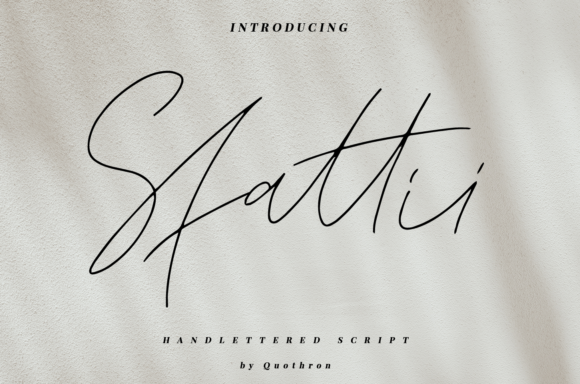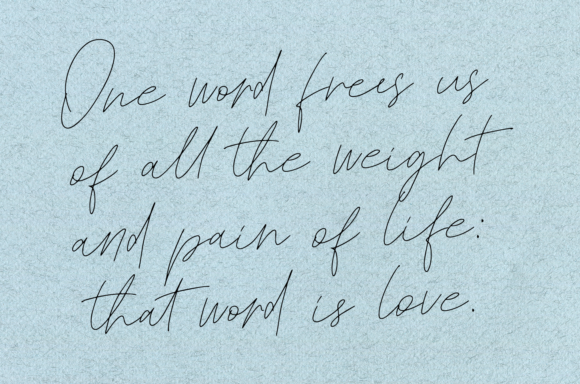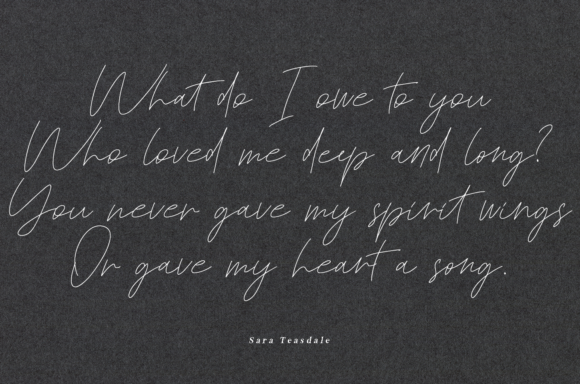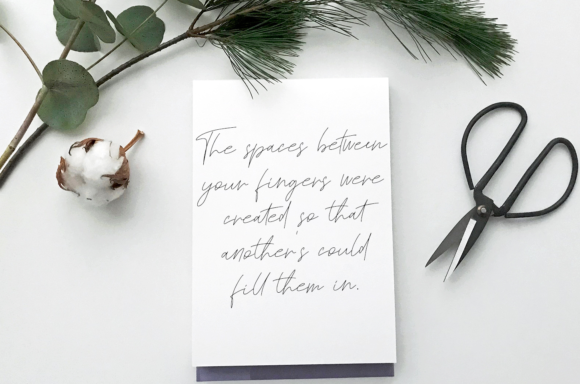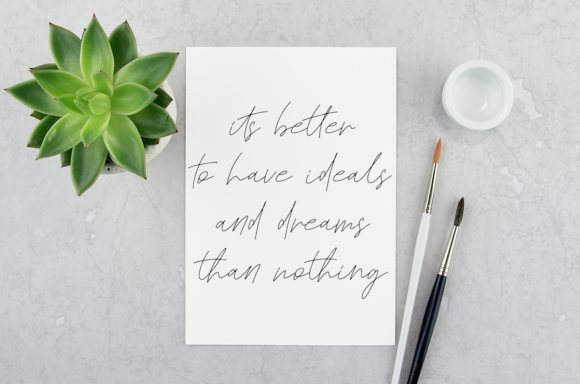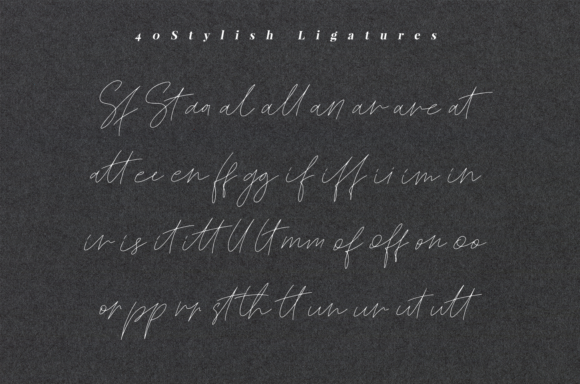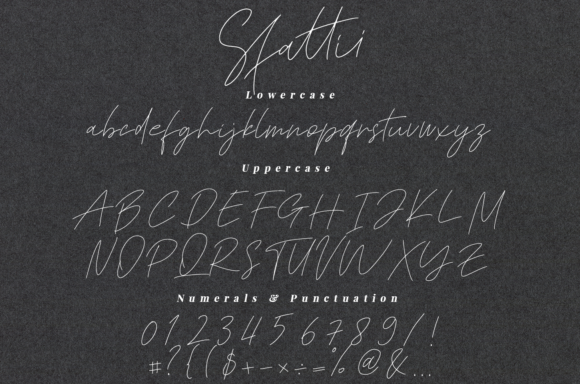
HomeScript FontsSfattii Font Script Fonts Sfattii Font FacebookXPinterestWhatsApp Sfattii Font Poster 2 Sfattii Font Poster 3 Sfattii Font Poster 4 Sfattii Font Poster 5 Sfattii Font Poster 6 Sfattii Font Poster 7 About Sfattii Font Sfattii is a lovely handmade calligraphy font. It will give your designs a classy and modern touch! DOWNLOAD ON CREATIVE FABRICAThis font is sold and delivered by Creative Fabrica. Font Canyon may earn a commission if you buy through this link. People also explored Yushina Font Summer Time Font Biggest Dreamer Font Present Lover Font Quick Font Shenandoah Clarendon Family Peanut Brittle Font Sambal Terasi Font Clay Pottery Font 313 0 TagsSfattii Font Previous articleThe Sallapan FontNext articleSetandar Font LEAVE A REPLY Cancel reply Comment: Please enter your comment! Name:* Please enter your name here Email:* You have entered an incorrect email address! Please enter your email address here Website: Save my name, email, and website in this browser for the next time I comment. Personal Use Free Ailand Personal Use Free Read more about this font Beloved Script Personal Use Free Read more about this font Harmony Personal Use Free Read more about this font Cherry Ai Personal Use Free Read more about this font BLOG Exploring Font Trends Shaping Communication in the Digital Era Fonts, like all design elements, are subject to trends. They play a crucial role in communicating a brand's personality,... Transform Your Website: Elevate Your Typography with 7 Best Web Font Generators Best Fonts for T-Shirt Design – Top 2025 Picks 5 Fonts That Will Dominate Design Trends in 2026